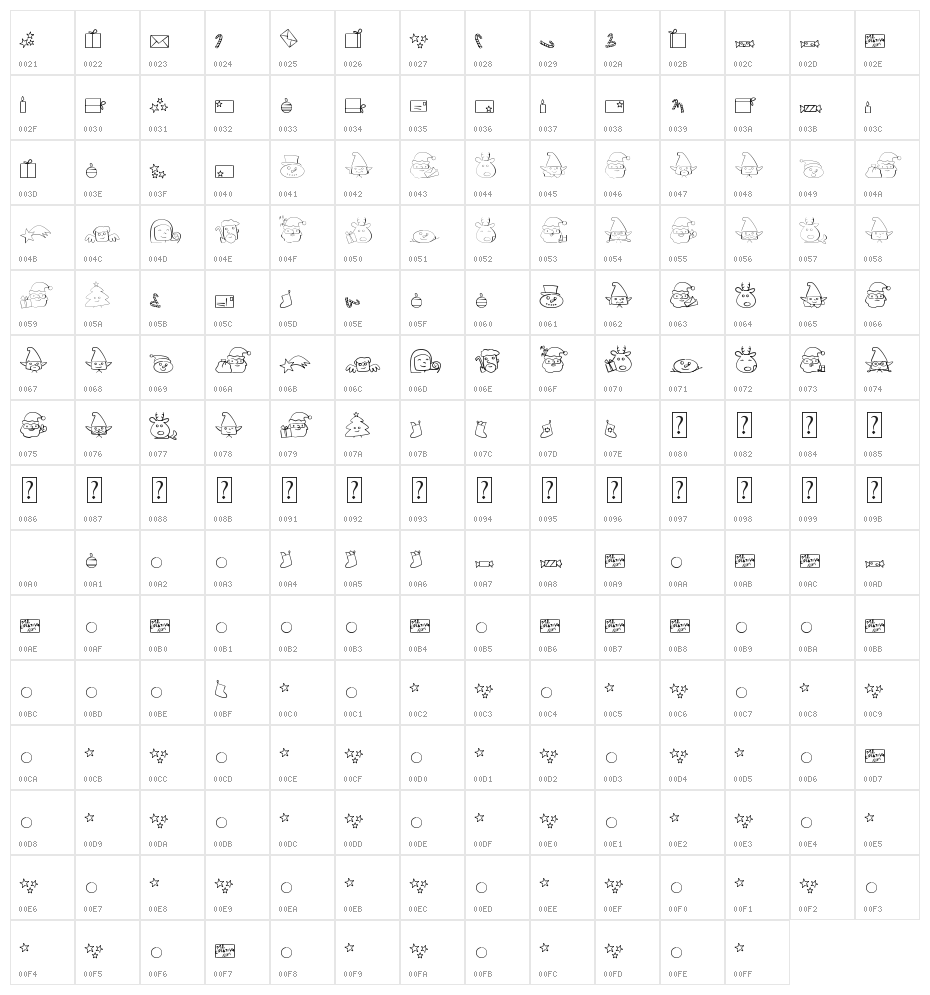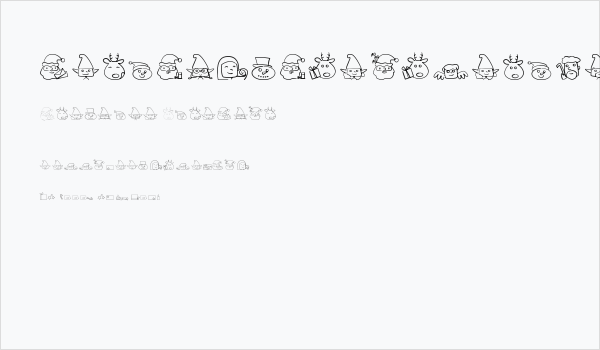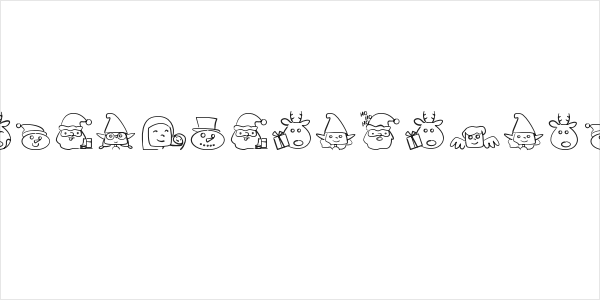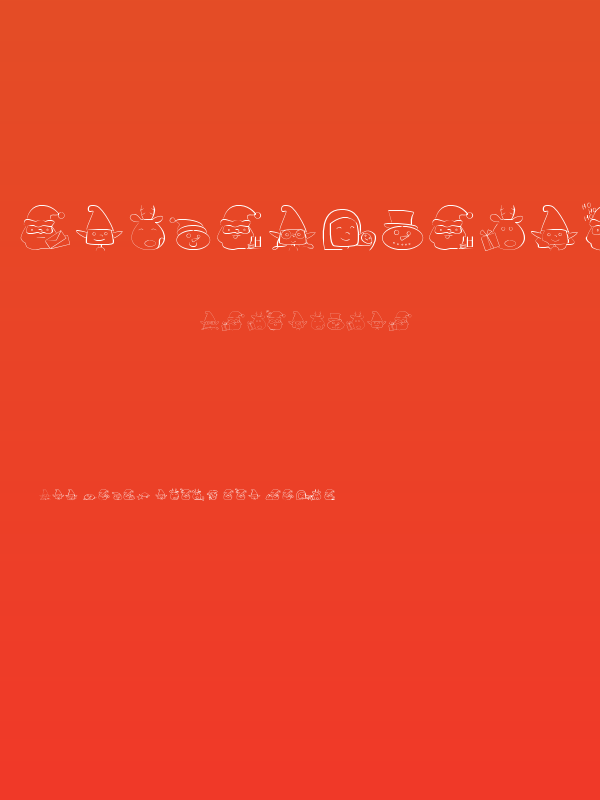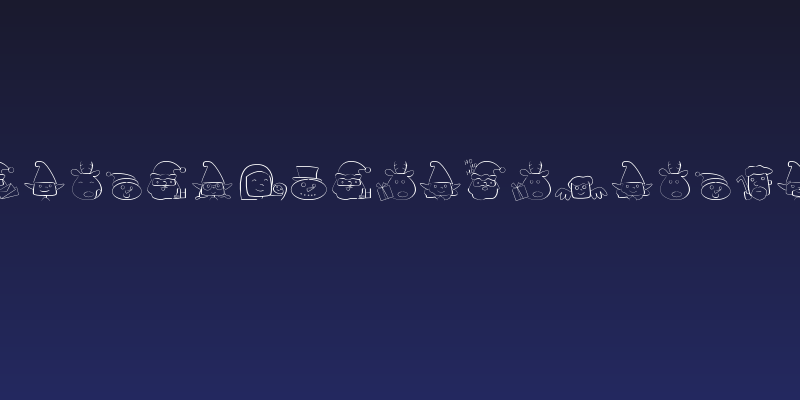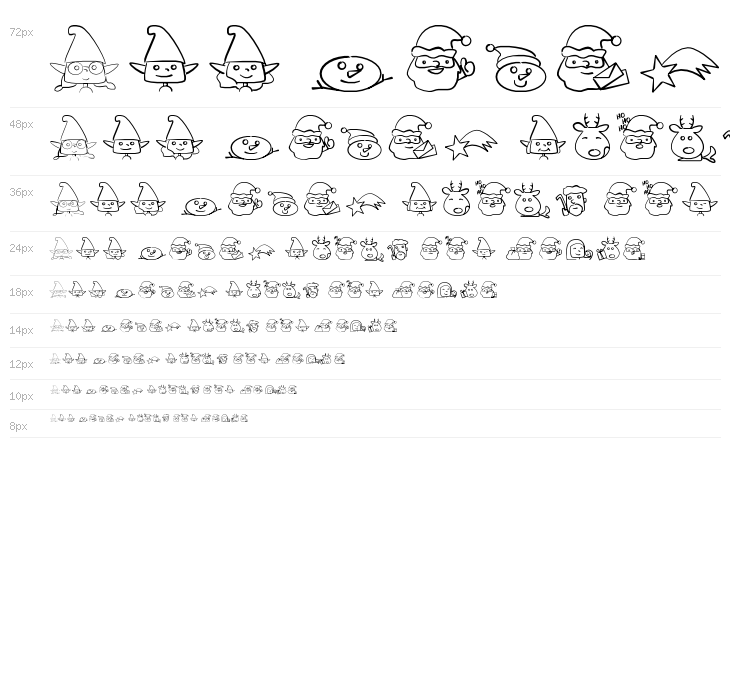
christmaspeopleding Font
christmaspeopleding Description
This whimsical and festive dingbat font features a variety of charming Christmas-themed illustrations. Each character is a unique drawing, including Santa Claus, reindeer, snowmen, elves, and other holiday icons. The designs are simple yet expressive, capturing the joyful spirit of the season. The line work is clean and consistent, making it easy to recognize each character. This font is perfect for adding a playful touch to holiday cards, decorations, and crafts. The illustrations are evenly spaced, ensuring a balanced and cohesive look when used in designs.
| Proposed Projects | Ideal for holiday cards, festive decorations, gift tags, and seasonal crafts. |